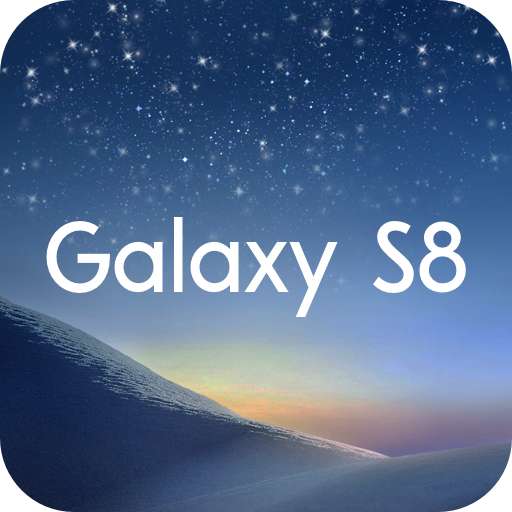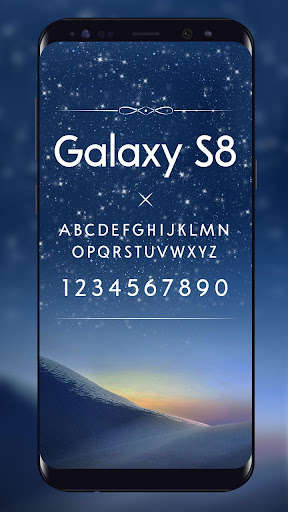
Galaxy S8 allows all users to change the system font of your phone or tablet .
You can find the amazing and perfect font style which fits your taste well.
Change your entire phone font into Galaxy S8.
Come and experience the customized font for you.
The feature of Galaxy S8 is compatible ability.
Lovely, sweet and colorful as you wish.
Hundreds of selected fonts style from handwritten fonts like Galaxy S8, such as cute, darker, comic, galaxy, love, pink, sexy written, colorful fonts, clean fonts, candy fonts, etc.